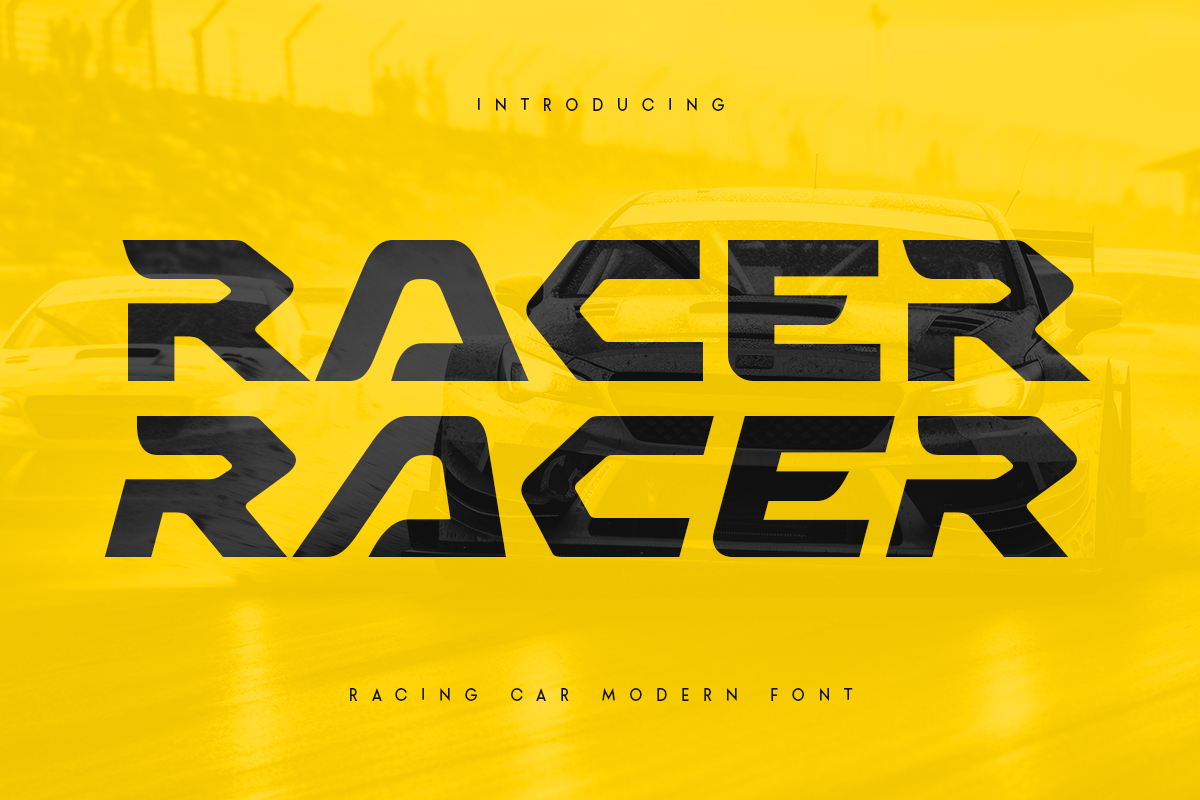
RACER - Racing Car Modern Font
RACER delivers high-octane typography engineered for bold branding and dynamic headlines that demand attention. This racing car modern font was specially crafted for sport and action themes, making it perfect for technology, fighting, and motorsport projects. The bold action style combined with modern aesthetics helps your main ideas stand out with powerful visual impact. RACER Racing Car Modern Font includes: Creative characters designed for optimal results 3 file formats: .otf, .ttf, .woff Pre...